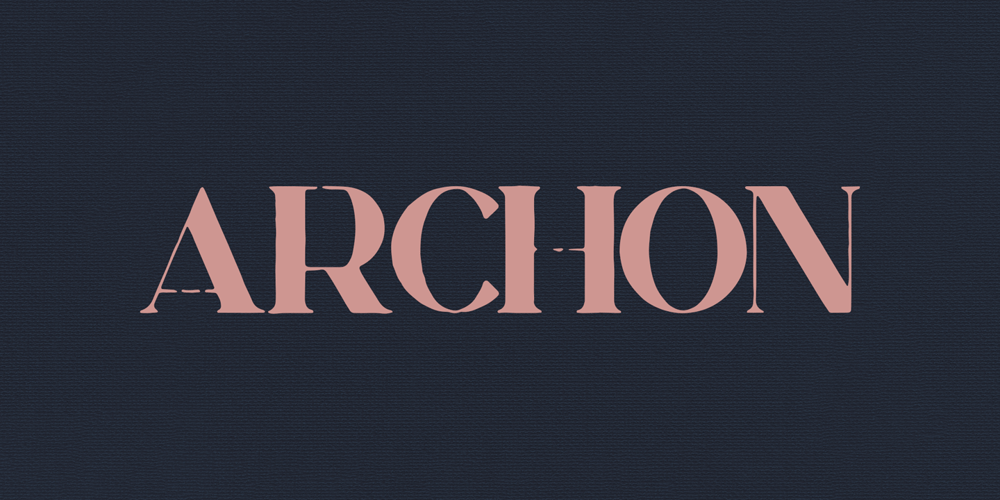
Archon Font Family was designed by Vladimir Fedotov, Plamen Petrov and published by VP Creative Shop. Archon contains 2 styles and family package options. Introducing Orphic serif Typeface Orphic is perfect for branding projects, home-ware designs, product packaging, magazine headers – or simply as a stylish text overlay to any background image.